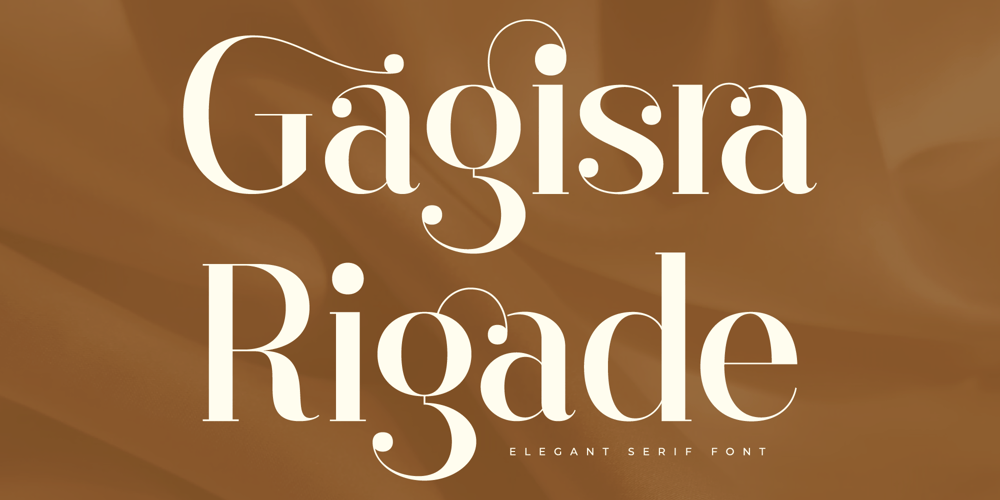
Gagisra Rigade Font Family was designed by Heru Utama Putra and published by Letterena Studios. Gagisra Rigade contains 2 styles and family package options. Gagisra Rigade is a classic serif font with a unique style and modern look. This typeface is perfect for an elegant & luxury logo, book or movie title design, fashion brand, magazine, clothes, lettering, quotes, and so much more.